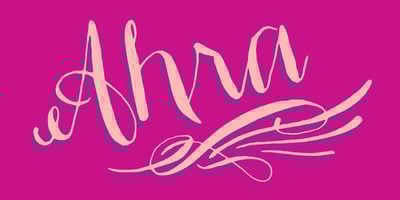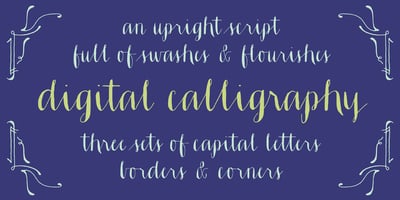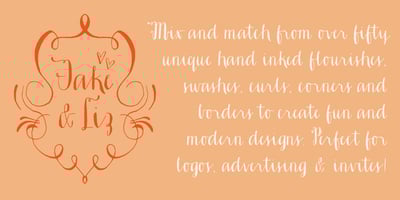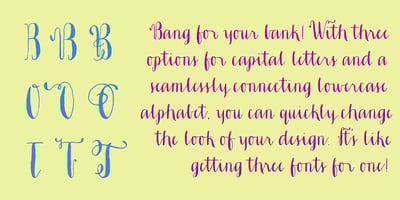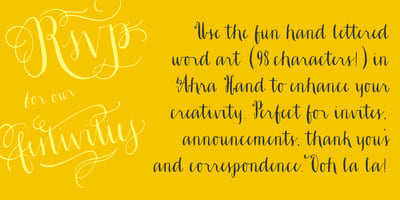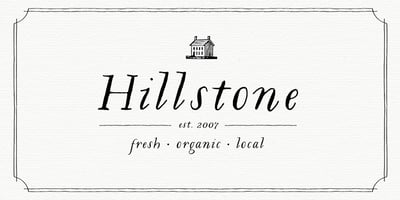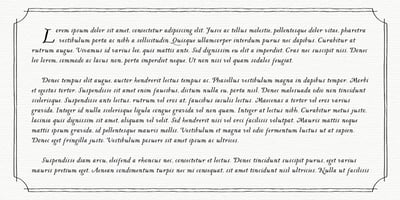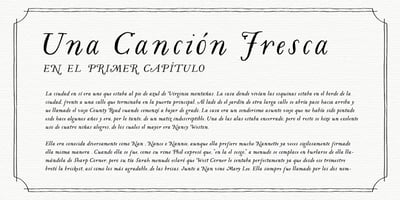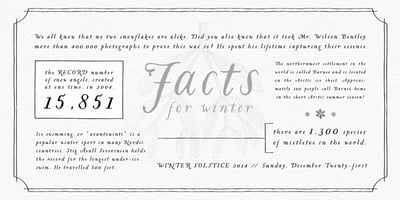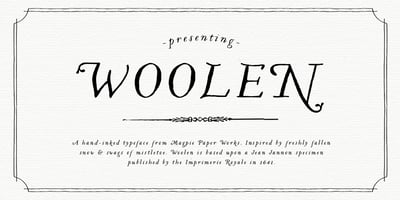
Magpie Paper Works
Nestled in rural North America, you’ll find the farmhouse that’s home to Magpie Paper Works. If the foundry’s owner and sole designer, Jessica McCarty, isn’t tucked inside designing typefaces, she’s more than likely out chicken wrangling and apple picking.
Jessica left behind agency life in 2010, opting instead to create her own studio. Her first font, Saissant, a rough, kinetic calligraphy script, was a non-traditional typeface that was almost instantly very popular. “I created Saissant,” she says, “because I was working on a client’s project and needed a font that looked truly handmade and wild, only to discover that there weren’t really any options available at the time. I figured that if I couldn’t find what I was looking for, I should make it instead. The rest was history!”
The self-taught designer approaches each project with a strong background in calligraphy and typographic illustration; a toolset that brings a hand-lettered feel to each of her typefaces. This is especially true for Jessica’s best selling font, Ondise: a calligraphy font with robust Opentype features and a warm, fresh and charming vibe.
Jess says that she’s seen her fonts used in everything from logos and wedding invitations to West Elm catalogs and even in the movie adaptation of The Great Gatsby. “It’s wonderful to have full creative freedom,” she says, “and I adore collaborating directly with clients to help them get the most out of their font purchases.”